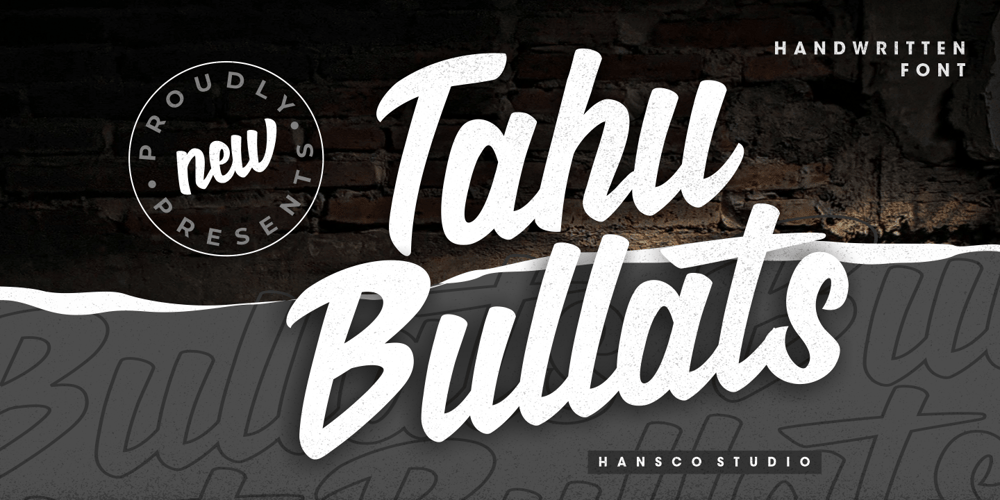
Tahu Bullats Font Family was designed by Burhan Afif and published by HansCo. Tahu Bullats contains 2 styles and family package options. Tahu Bullats a Handwriting typeface.Tahu Bullats is a bold and fun typeface with many ligatures and alternates. Comes with a full uppercase, lowercase, numbers and punctuation + standard multilingual support. It’s great for branding, logo designs, lettering, logotype, clothing, posters, magazines, and much more. We recommend using Adobe Illustrator or Photoshop.